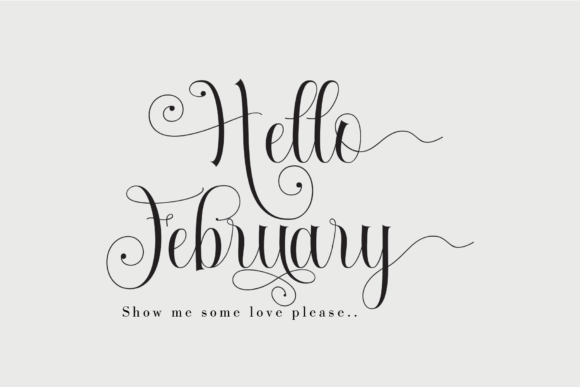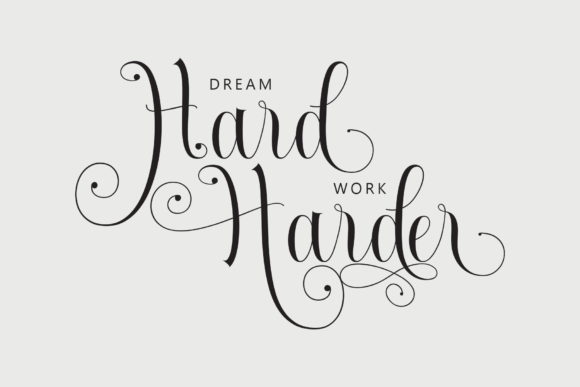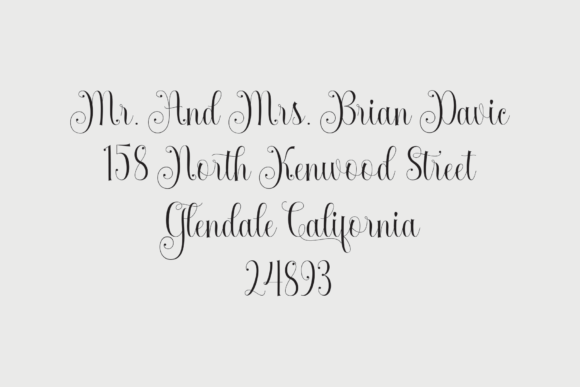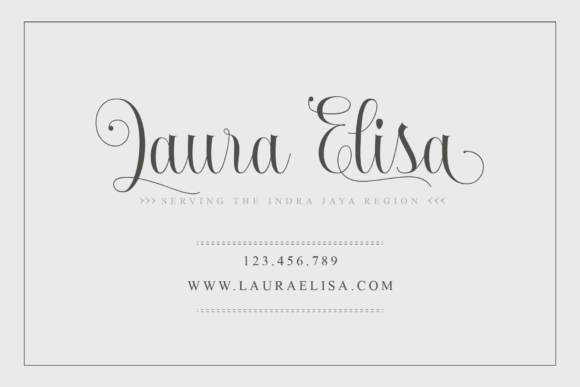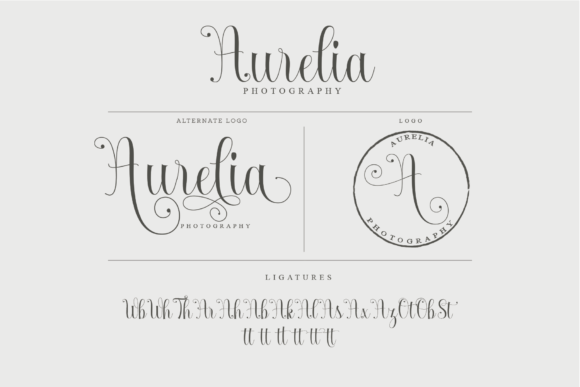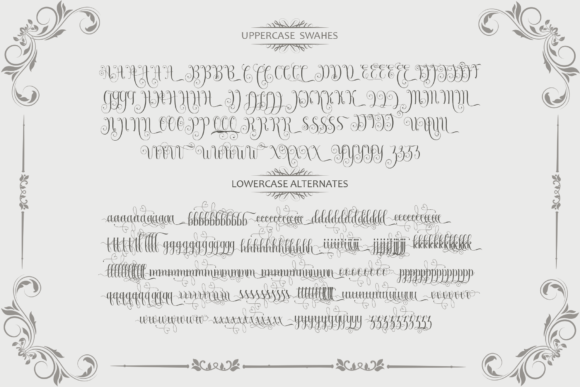
Introducing Absolut Font: Elevate Your Designs with Luxury and Elegance
Are you tired of using the same old fonts in your design projects? Look no further than Absolut Font, a beautiful and light handwritten font that is sure to add a touch of luxury and sophistication to any design. With its unique feel and stunning impact, Absolut Font is the perfect choice for designers and crafters looking to elevate their work.
What Makes Absolut Font Special?
Absolut Font is a one-of-a-kind font that boasts a distinctive and elegant style. Its light and airy feel makes it perfect for a wide range of design projects, from wedding invitations and branding materials to packaging and advertising. The font’s unique feel and stunning impact are sure to capture the attention of your audience and leave a lasting impression.
PUA Encoding for Easy Access to Glyphs and Ligatures
One of the standout features of Absolut Font is its PUA (Private Use Area) encoding. This means that you can easily access all of the font’s amazing glyphs and ligatures, making it simple to add a touch of elegance and sophistication to your designs. With PUA encoding, you can effortlessly create beautiful and intricate designs that will set you apart from the competition.
Absolut Font is the perfect choice for designers and crafters looking to add a touch of luxury and elegance to their work. Whether you’re creating wedding invitations, branding materials, or packaging, this font is sure to impress. Its unique feel and stunning impact make it perfect for a wide range of design projects, and its PUA encoding makes it easy to use and customize.
Benefits of Using Absolut Font
- Add a touch of luxury and elegance to your designs with Absolut Font’s unique and sophisticated style.
- Easily access glyphs and ligatures with PUA encoding, making it simple to create beautiful and intricate designs.
- Perfect for a wide range of design projects, from wedding invitations and branding materials to packaging and advertising.
- Stand out from the competition with Absolut Font’s distinctive and elegant style.
Absolut Font is a beautiful and light handwritten font that is sure to add a touch of luxury and elegance to any design project. With its unique feel and stunning impact, PUA encoding, and ease of use, Absolut Font is the perfect choice for designers and crafters looking to elevate their work. Whether you’re creating wedding invitations, branding materials, or packaging, Absolut Font is the perfect choice for adding a touch of sophistication and elegance to your designs.